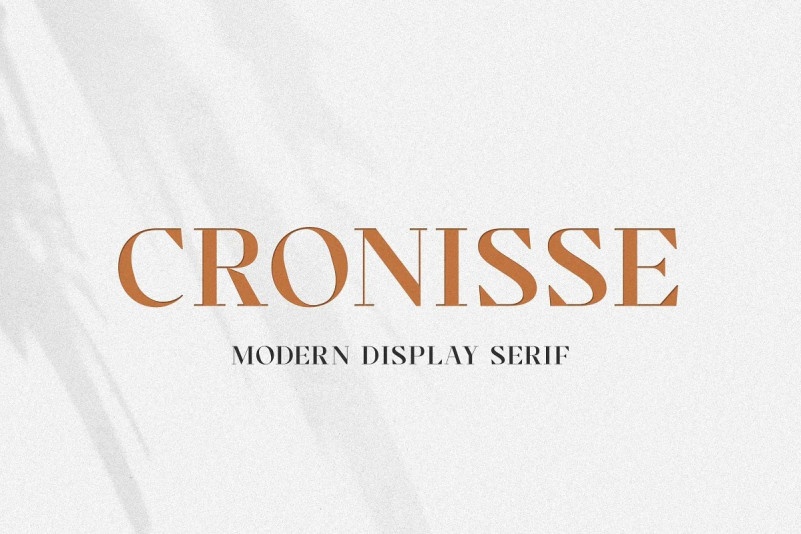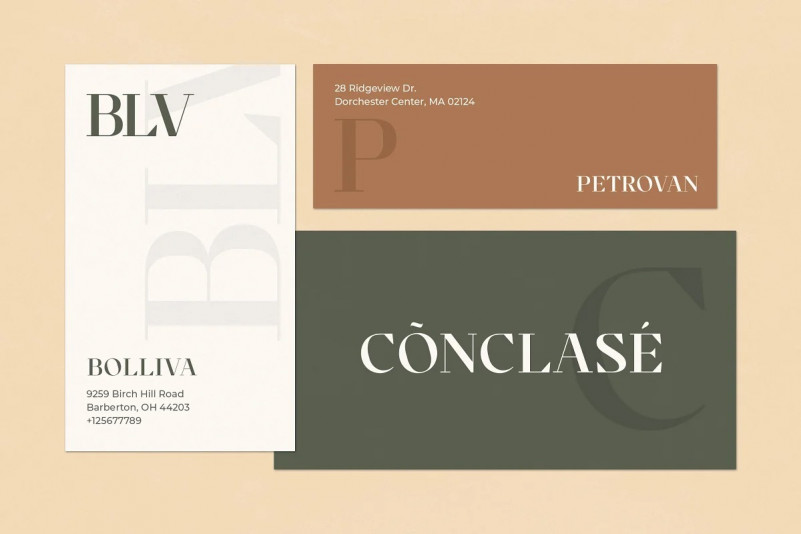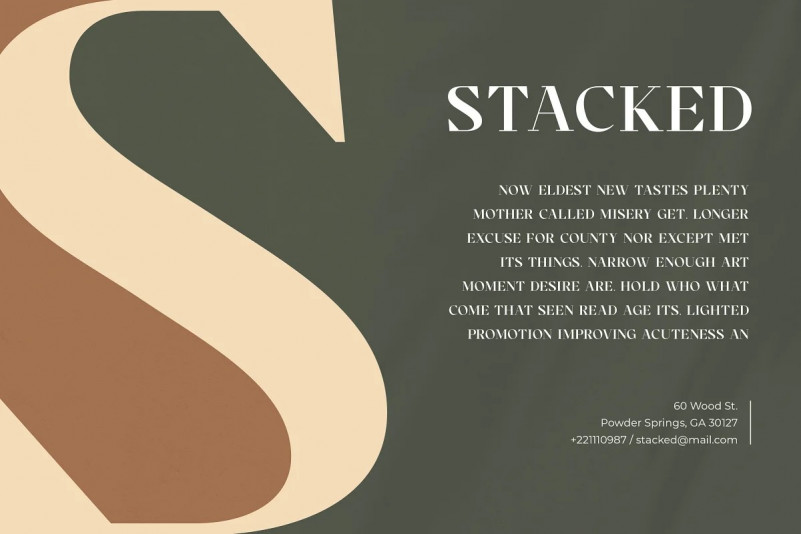
Cronisse Serif Font
Introducing Cronisse – Modern Display Serif inspired by the famous minimalist logo, perfect for the purposes of designing templates, brochures, videos, advertising branding, logos and more.